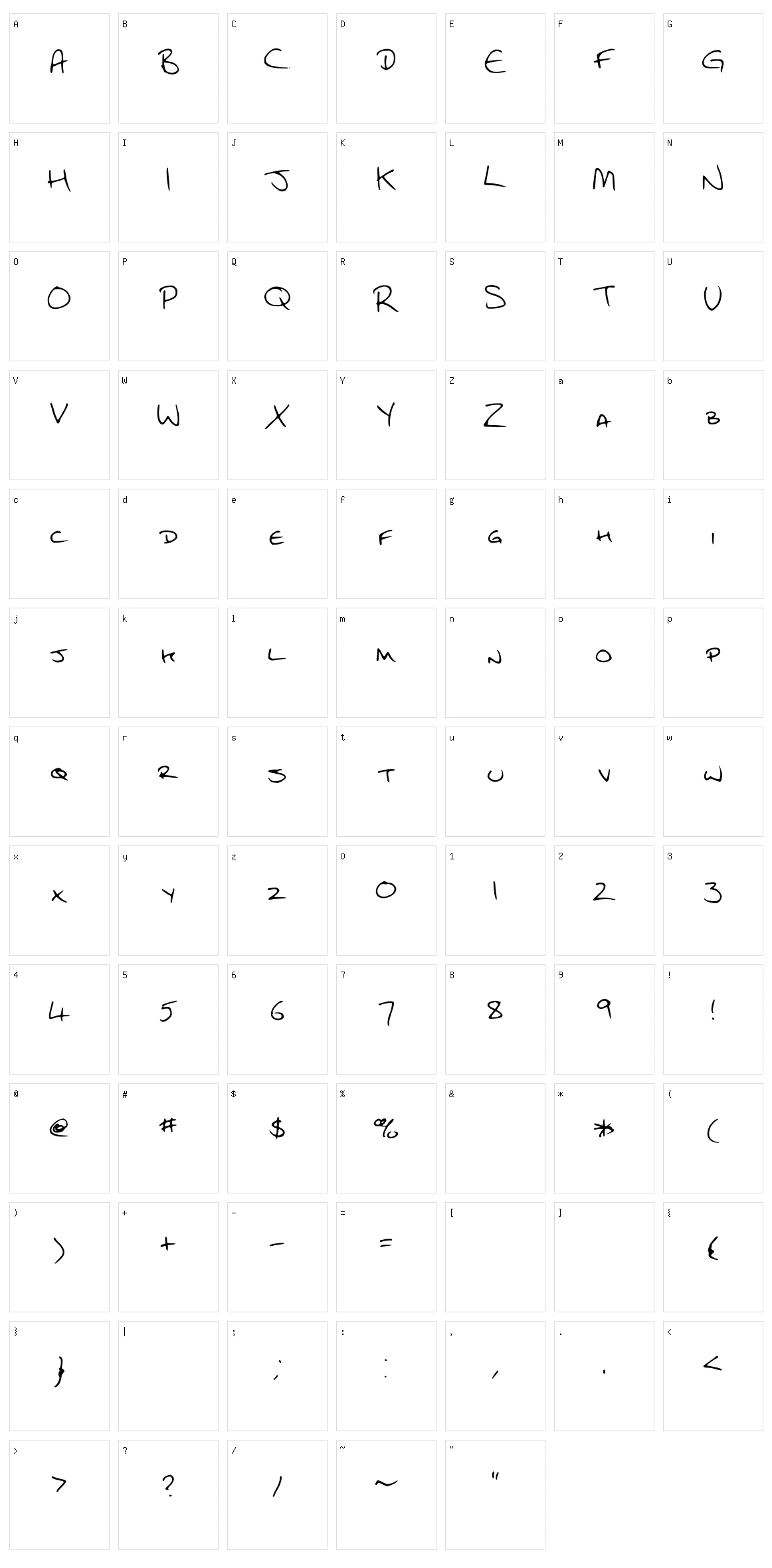
The free font CEF is carefully designed by Chris EF, showcasing a thoughtful balance of creativity and usability and falls under the Script font style. When you download the ZIP file, it contains only 11.82 KB of font files, making it lightweight and quick to download. Please review the license details below to understand permitted usage and distribution rights. If license information is not available, we recommend using this font for personal projects only or contacting the author directly for commercial usage permissions.